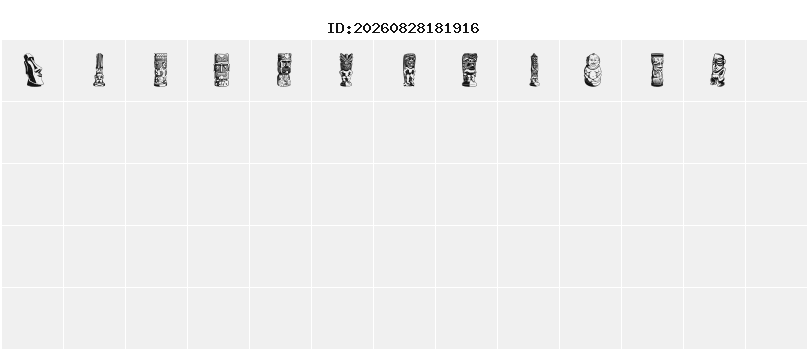
• Font Name: Tiki
• Full Font Name: Tiki Native Art
• PostScript Name: TikiNativeArt
• Character Count: 13
• Designer: Apostrophe
• Description: This font is made up of 12 EPS files imported through Fontlab.